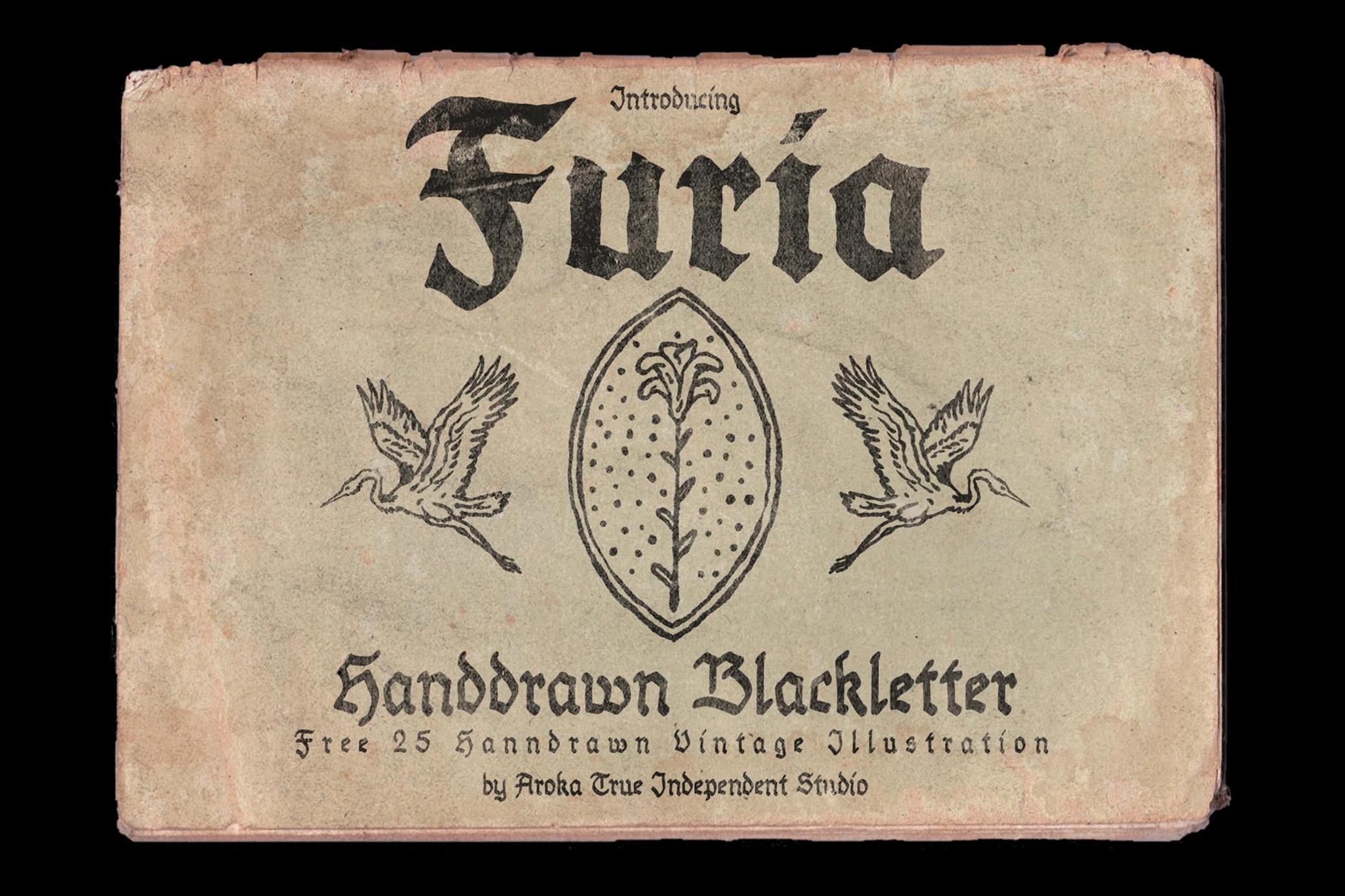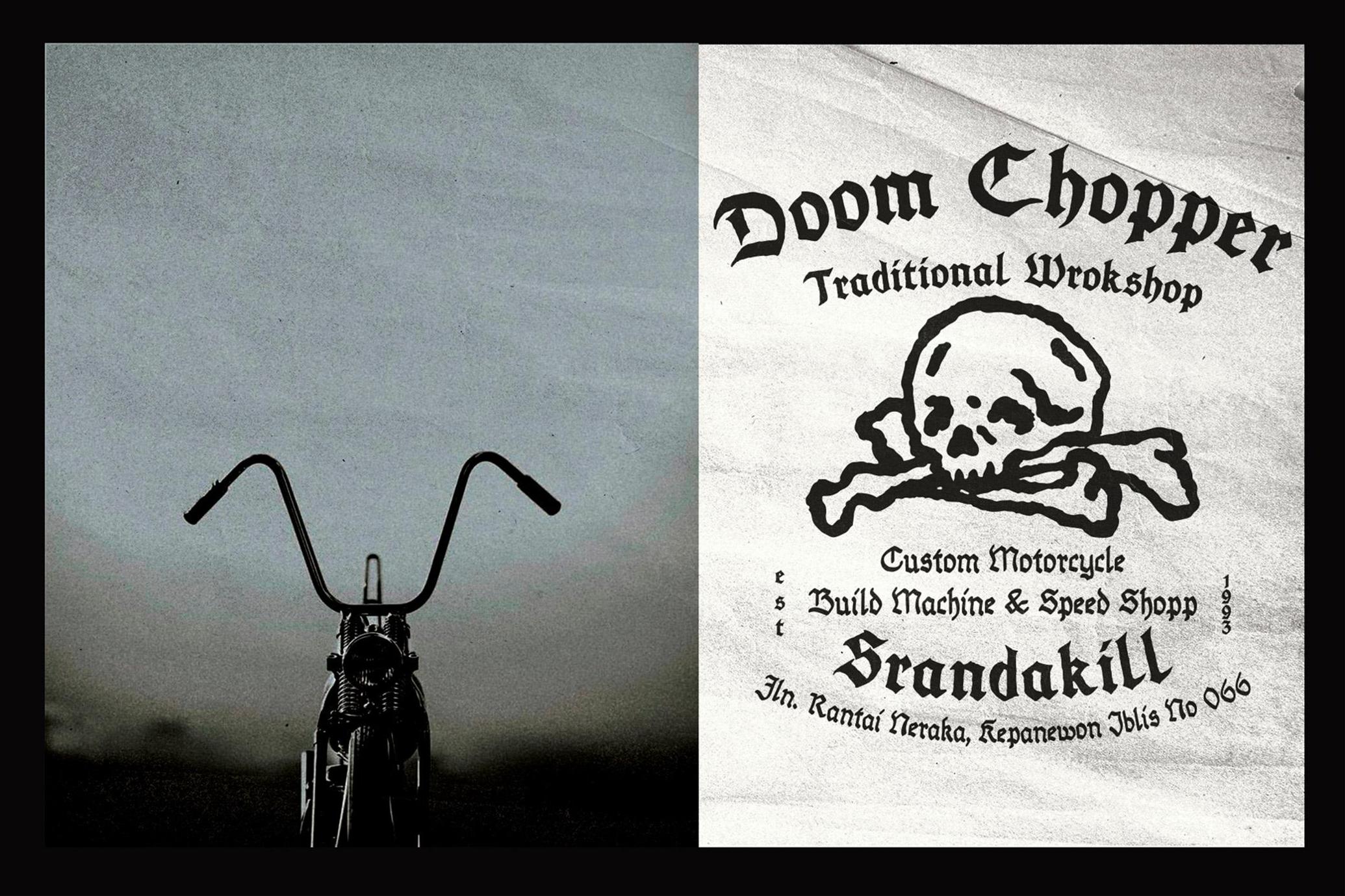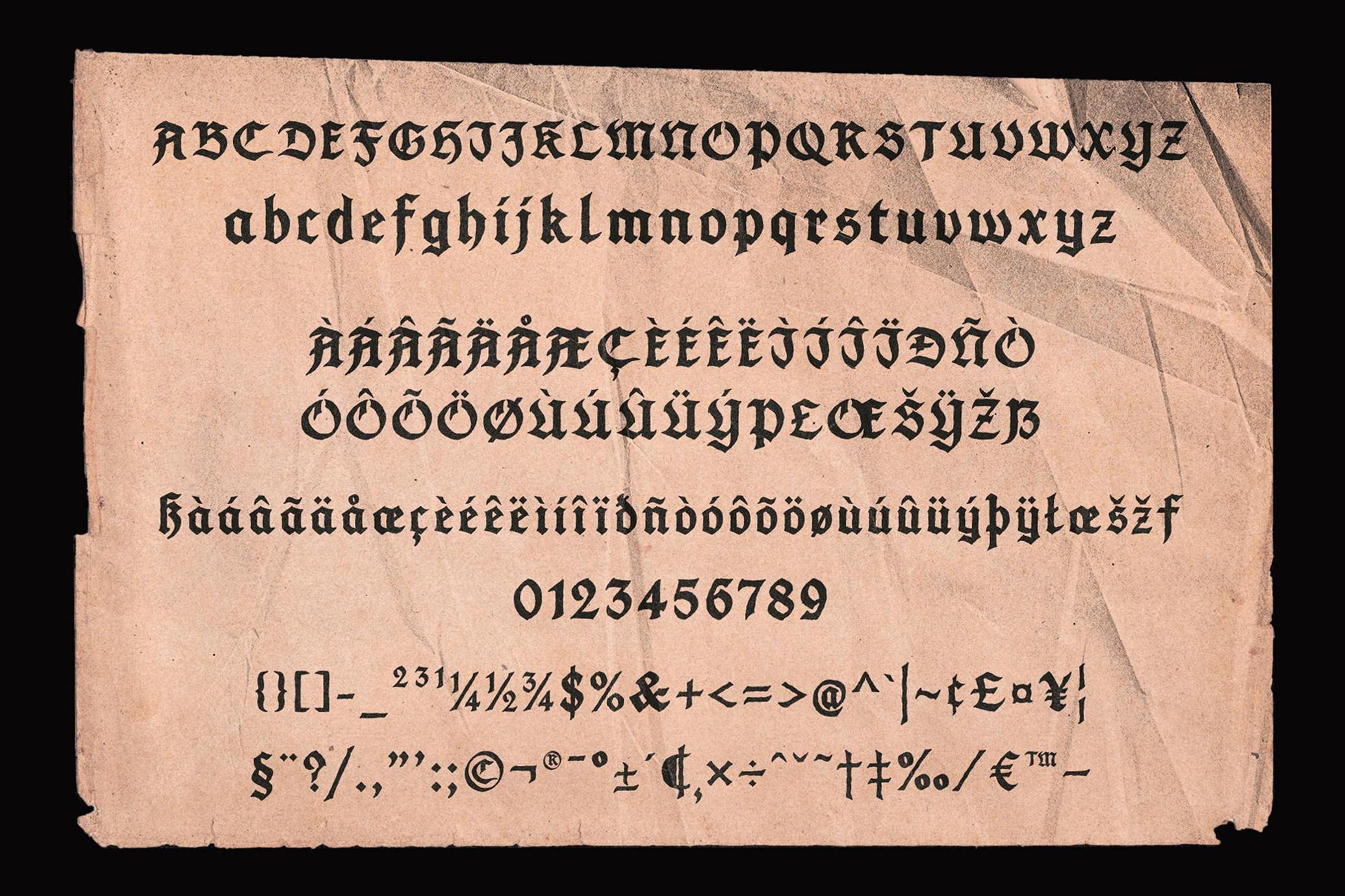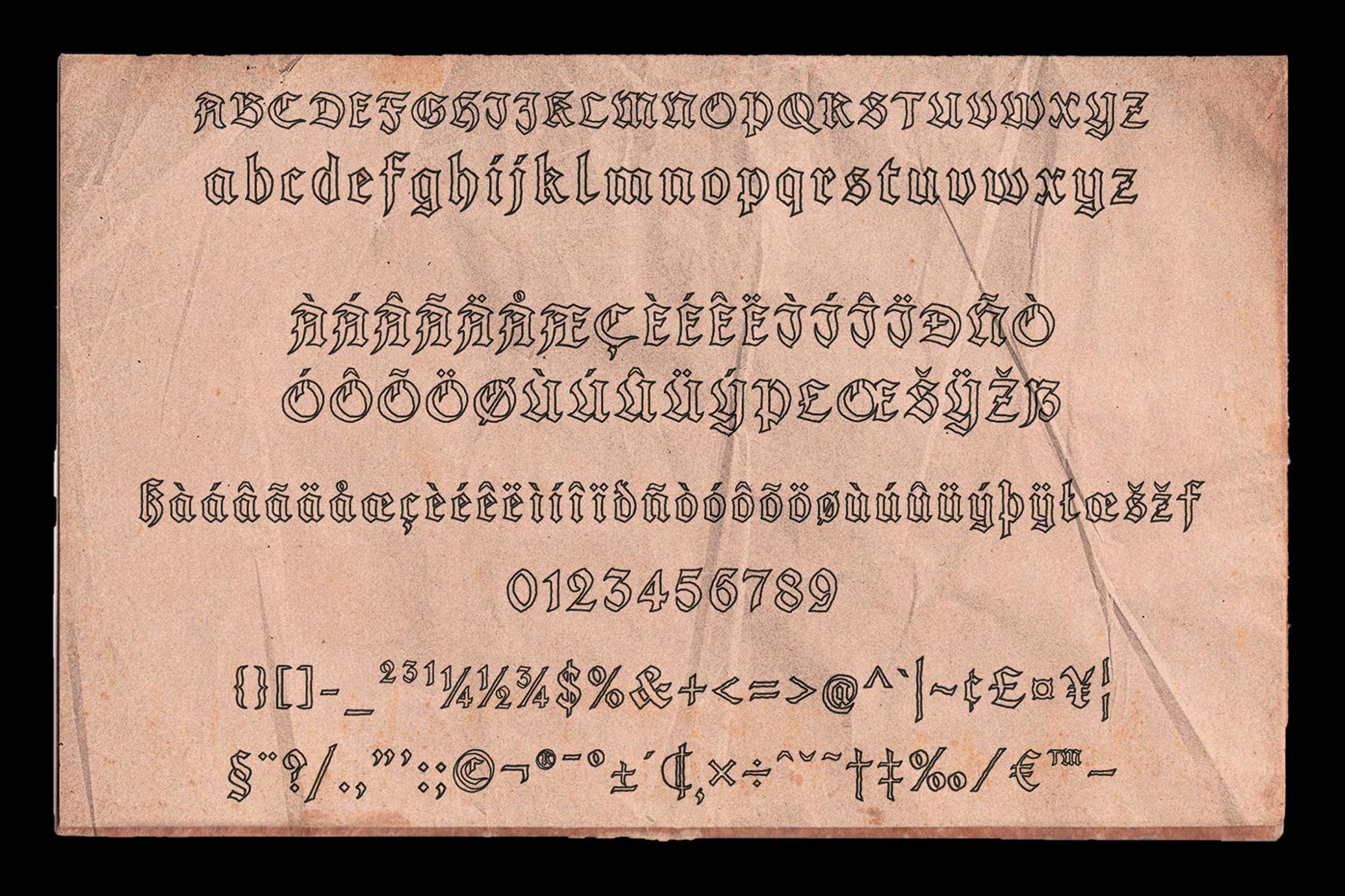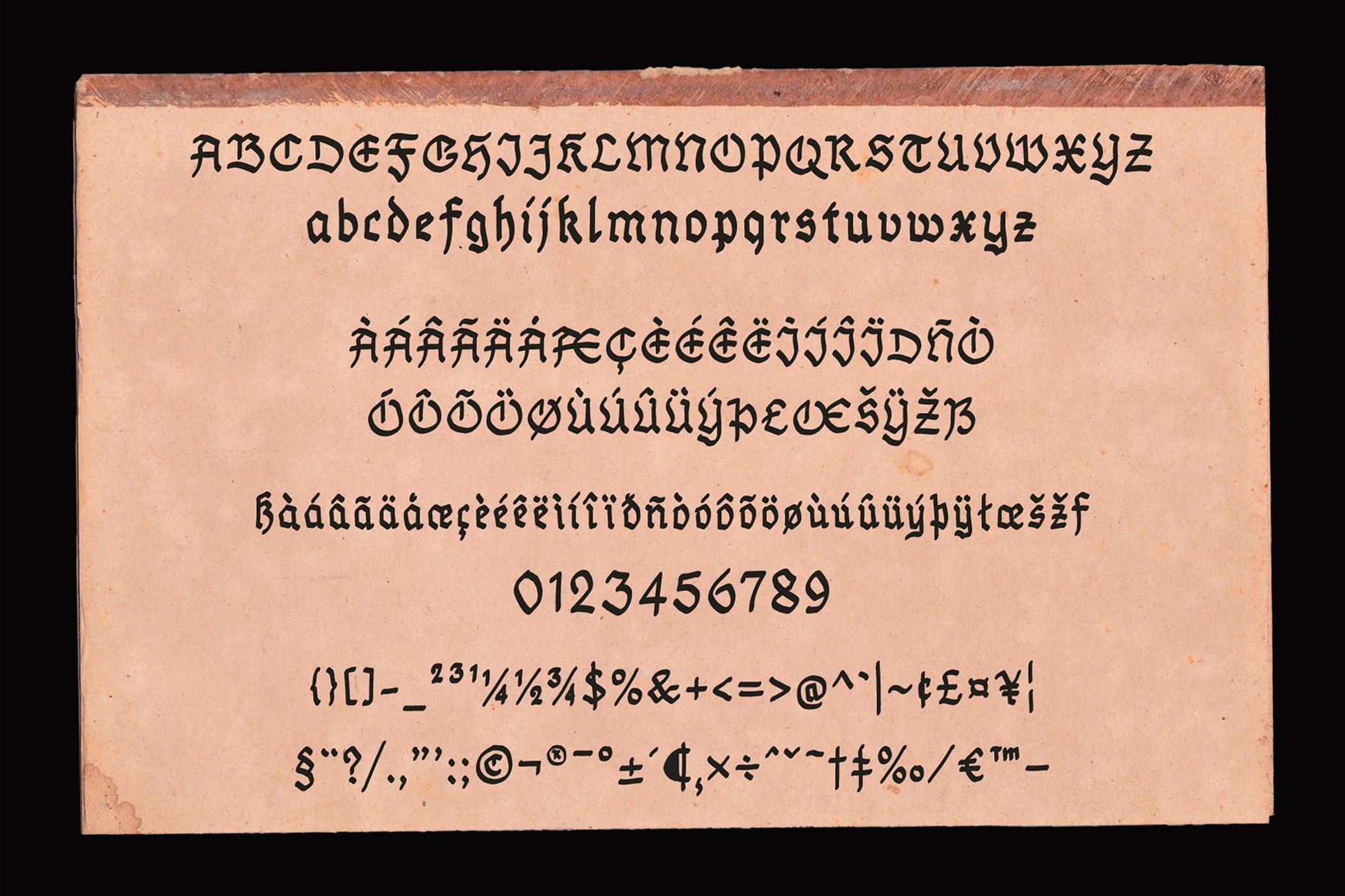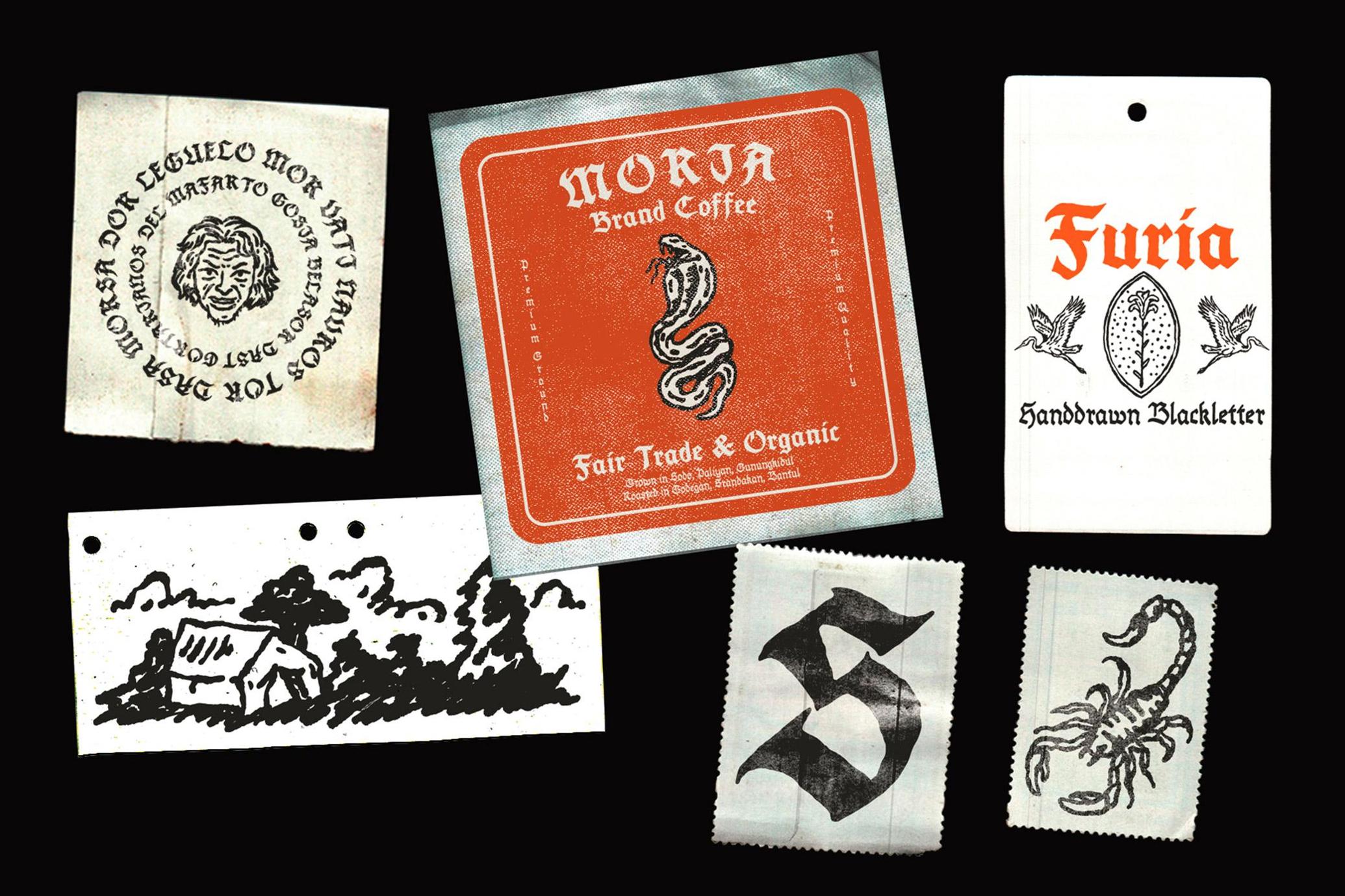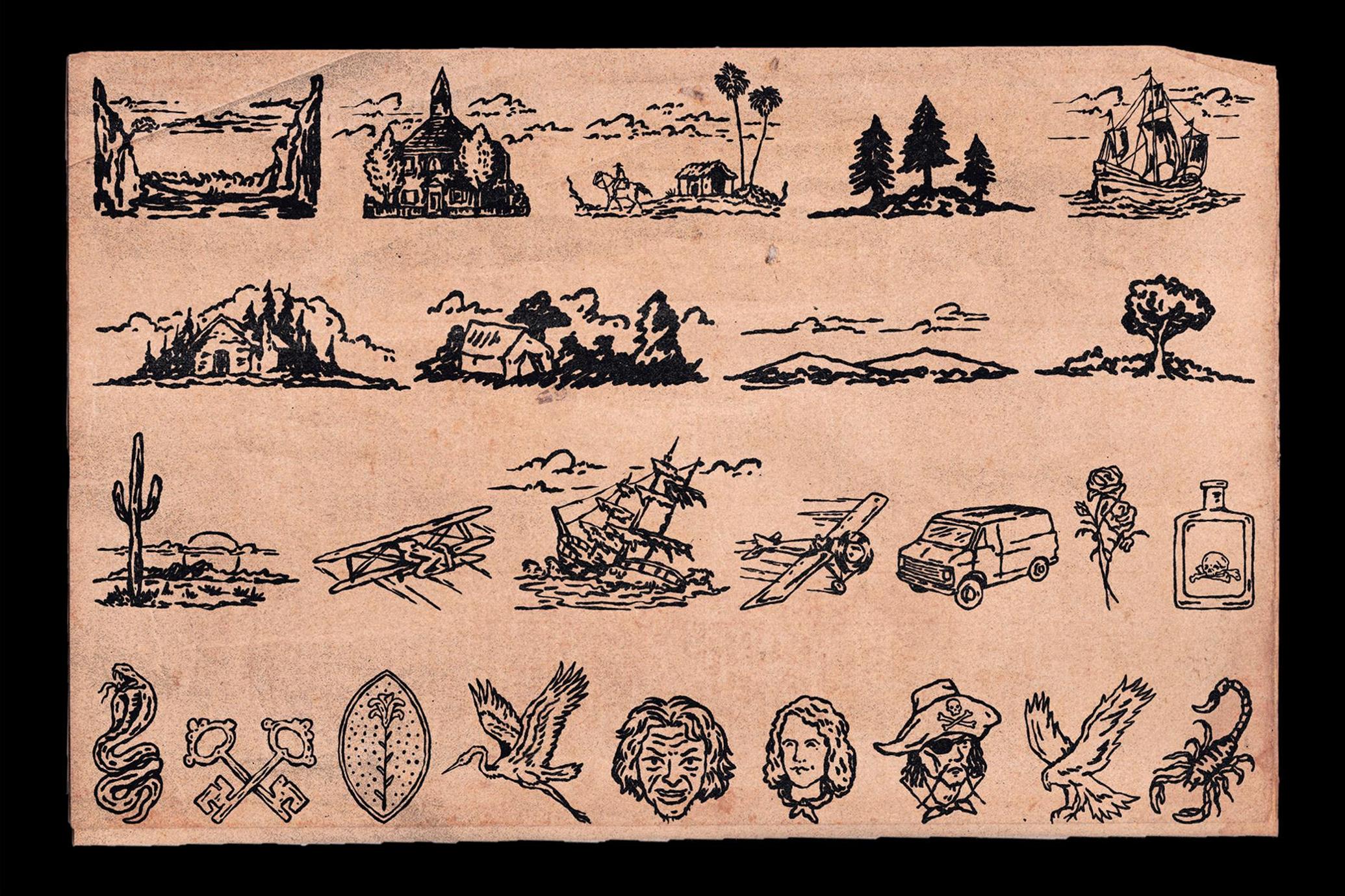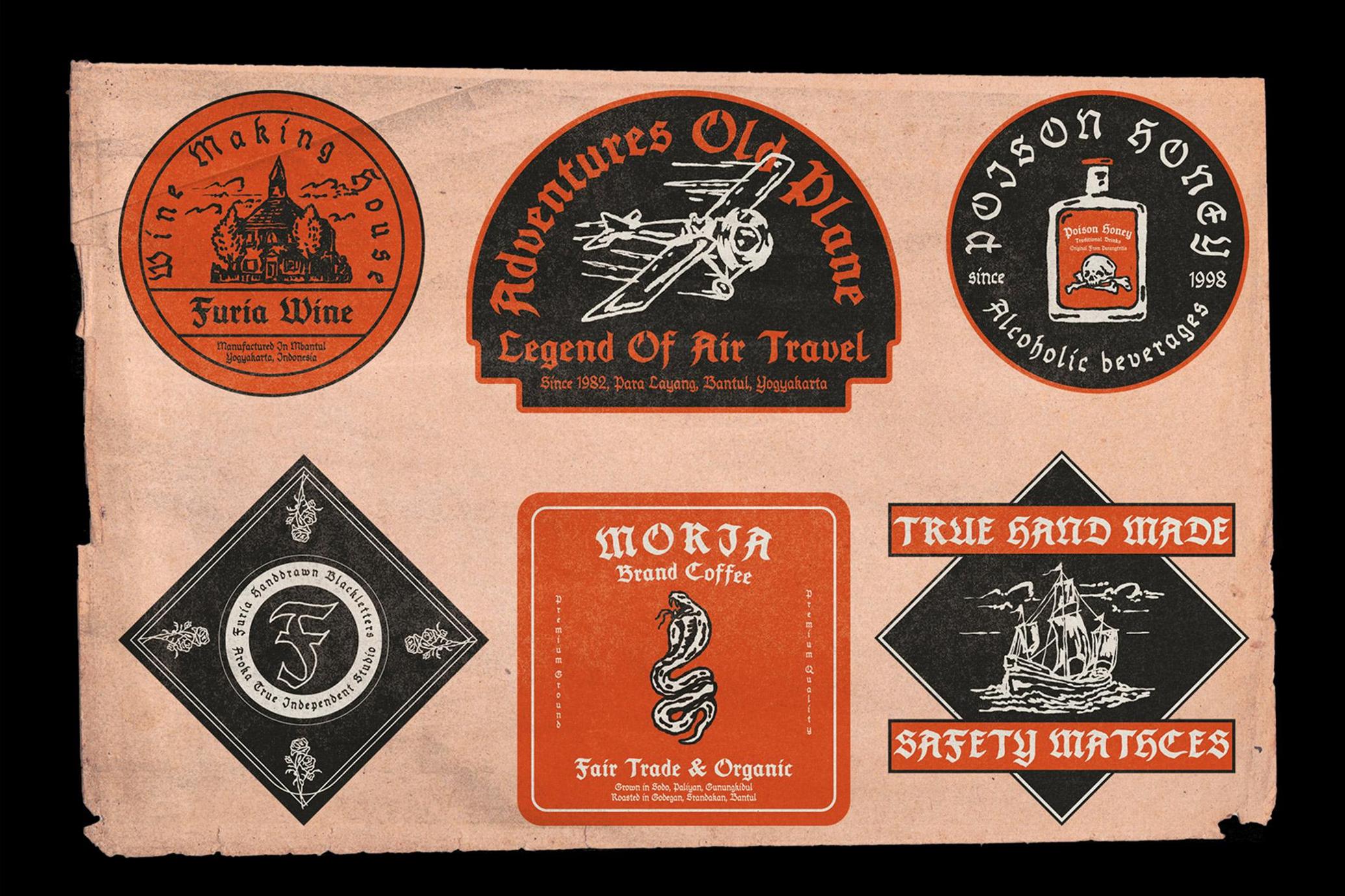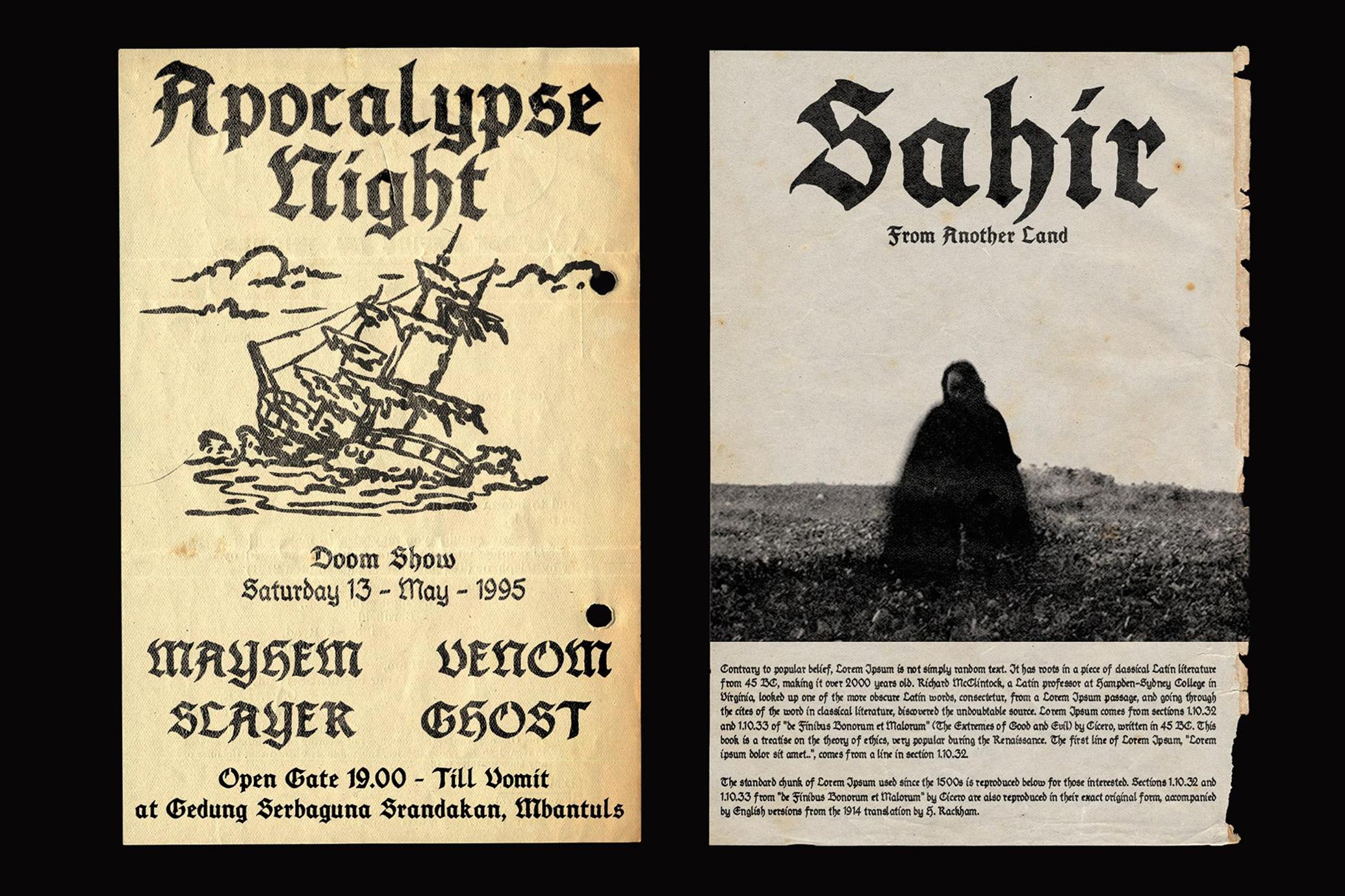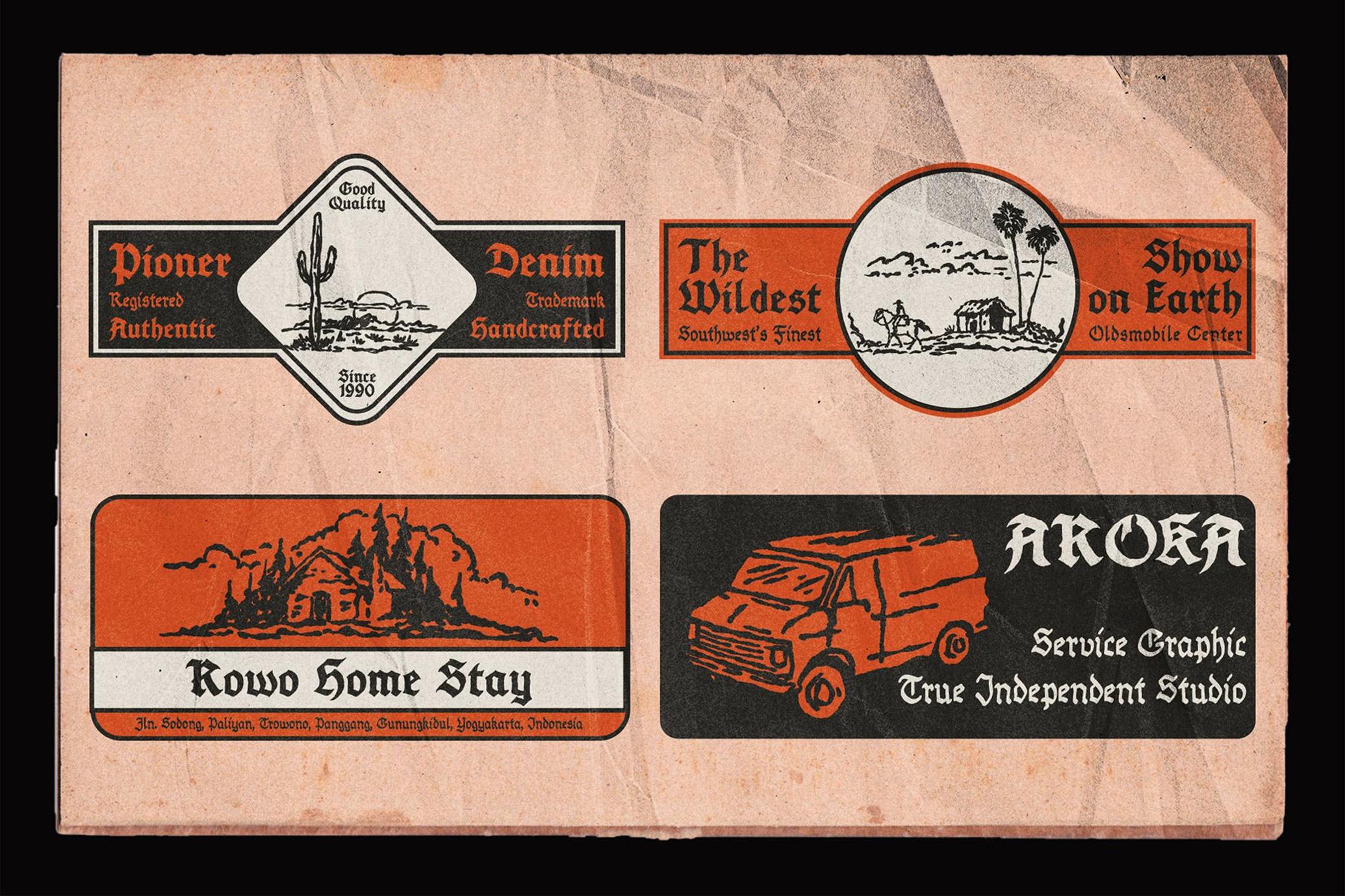
FURIA Hand-Drawn Blackletter Font
FURIA is a hand-drawn blackletter font featuring the grit of tradition with a human edge. It's offered in 3 variations — regular, outline, and thin — letting you move between heavy gothic drama and more delicate strokes, still with amedieval character. The typeface is complemented by a bonus set of 25 hand-drawn vintage icons, perfect for pairing with lettering or using as stand-alone marks. The glyph set covers uppercase, lowercase, numerals, punctuation, and multilingual characters, making it versatile for posters, apparel, album artwork, editorial spreads, or branding with an old-world bite.